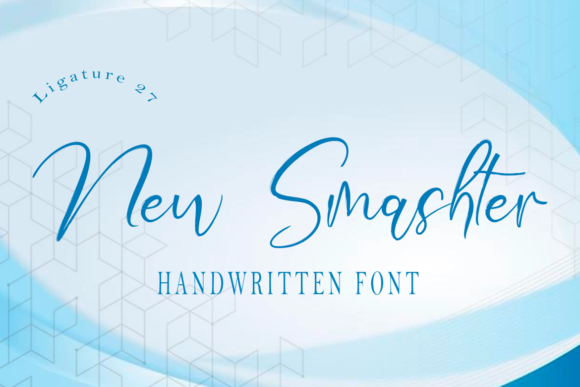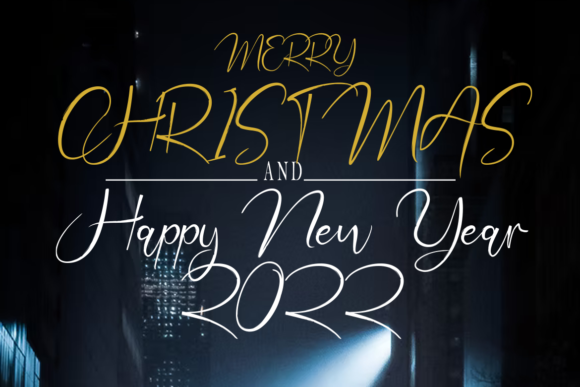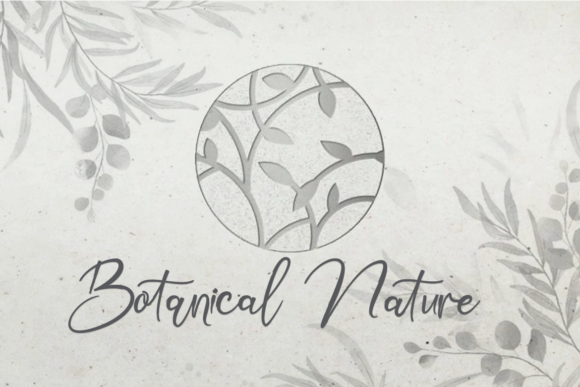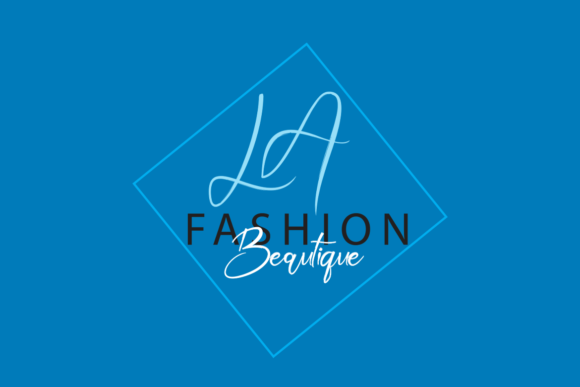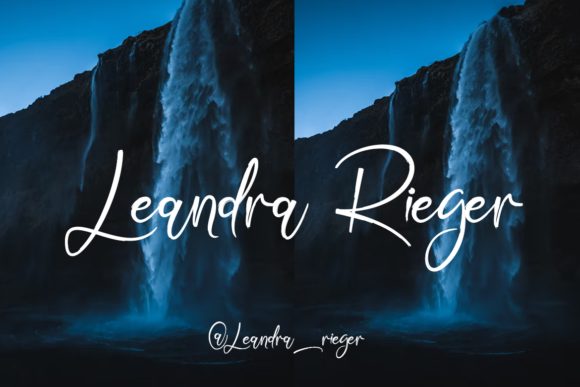
About New Smashter Font
New Smashter is a lovely and timeless handwritten font. It is the best choice for creating eye catching logos, branding and quotes. New Smashter features a delicate sweep and style.